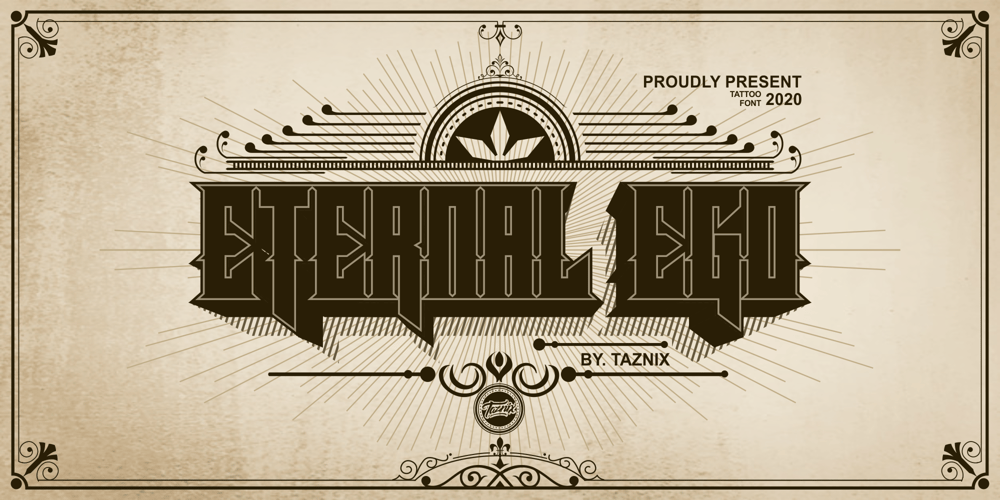
Eternal Ego Font Family was designed by Ricky Hartasni and published by Taznix Creative. Eternal Ego contains 1 styles and family package options. Eternal Ego is a blackletter font with a unique and different style, with a touch of vintage design will create a unique design.Eternal Ego Perfect for for many creative products such as logos, tattoo design, t-shirt prints, street wear, headlines, tattoo lettering, calligraphy, clothing brands, music, sports, labels and much more.What’s Included : Standard glyphs Ligature Works on PC & Mac Simple installations Accessible in the Adobe Illustrator, Adobe Photoshop, Adobe InDesign, even work on Microsoft Word. PUA Encoded Characters – Fully accessible without additional design software. Fonts include multilingual support for; ä ö ü Ä Ö Ü ß ¿ ¡ Image used : All photographs/pictures/vector used in the preview are not included, they are intended for illustration purpose only.